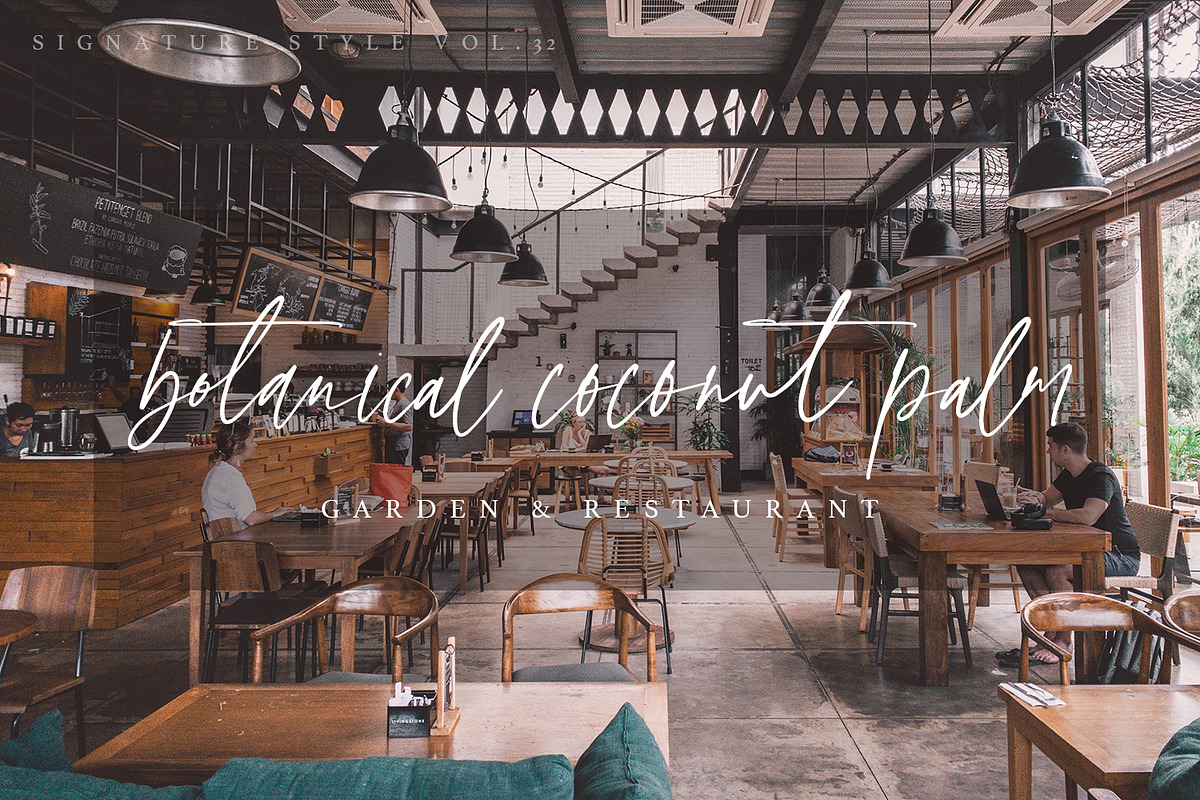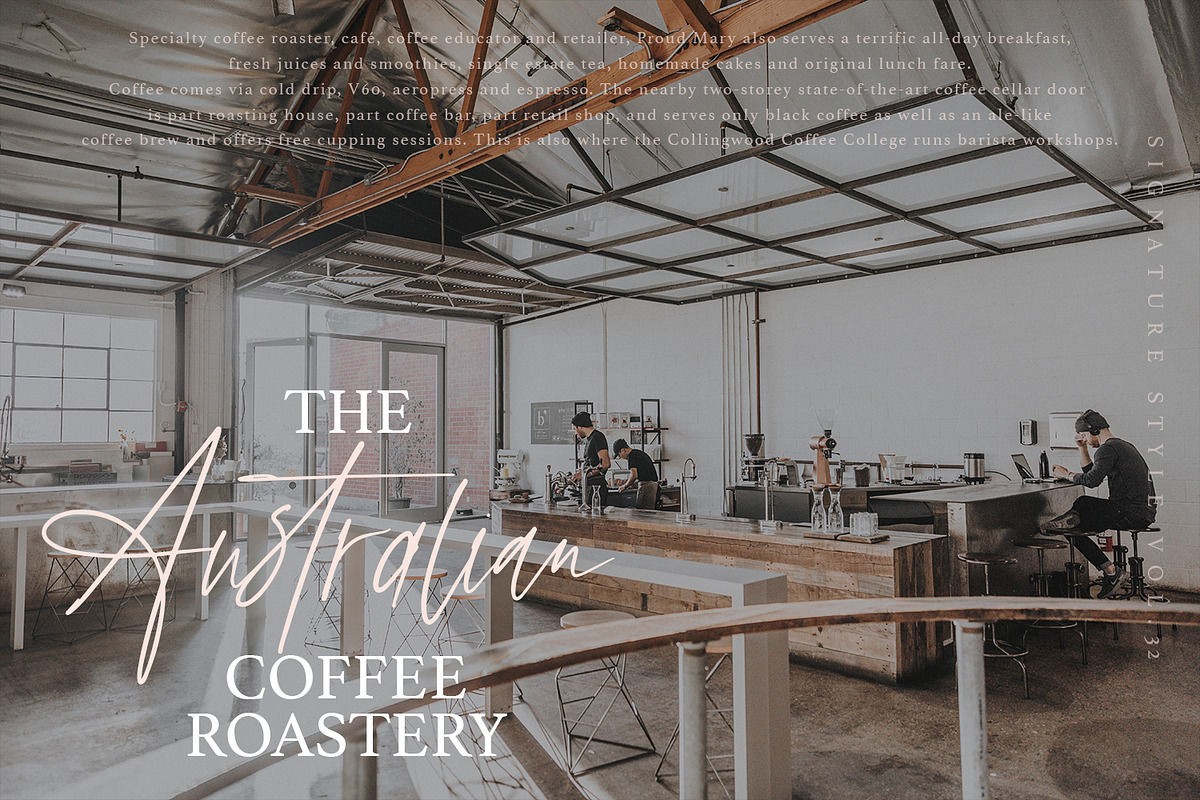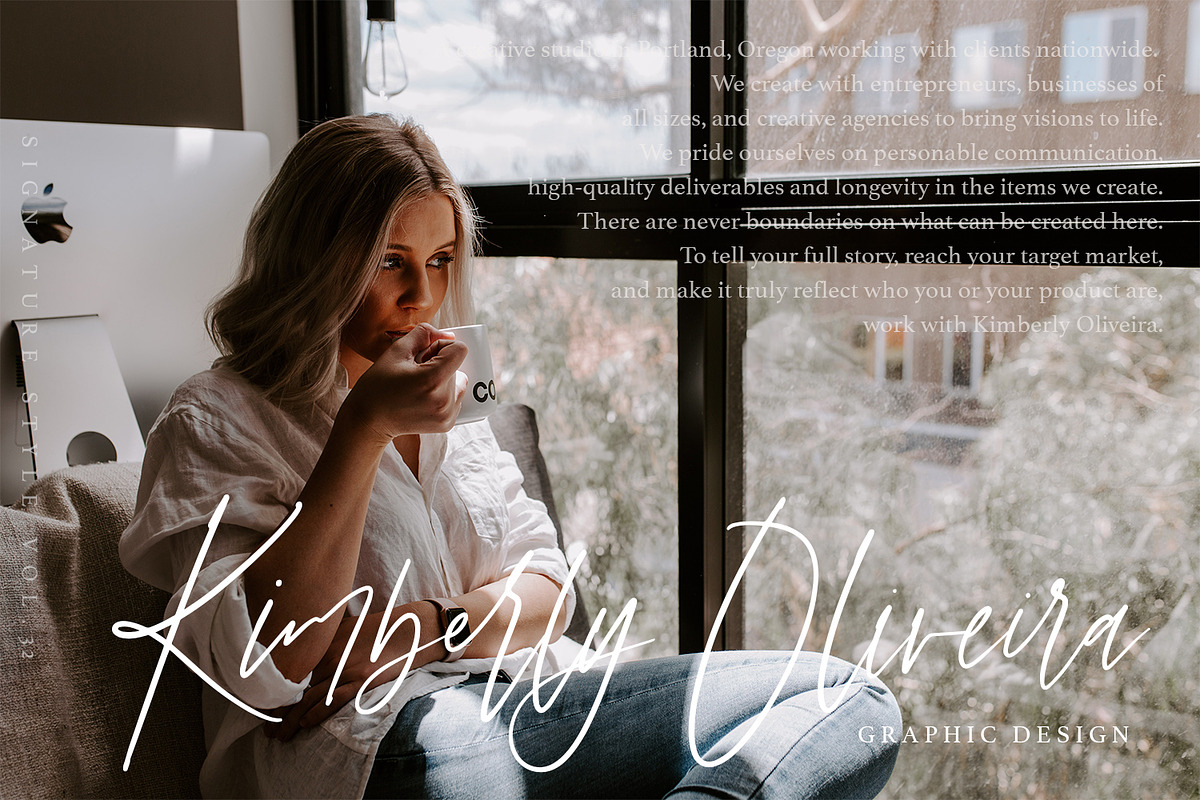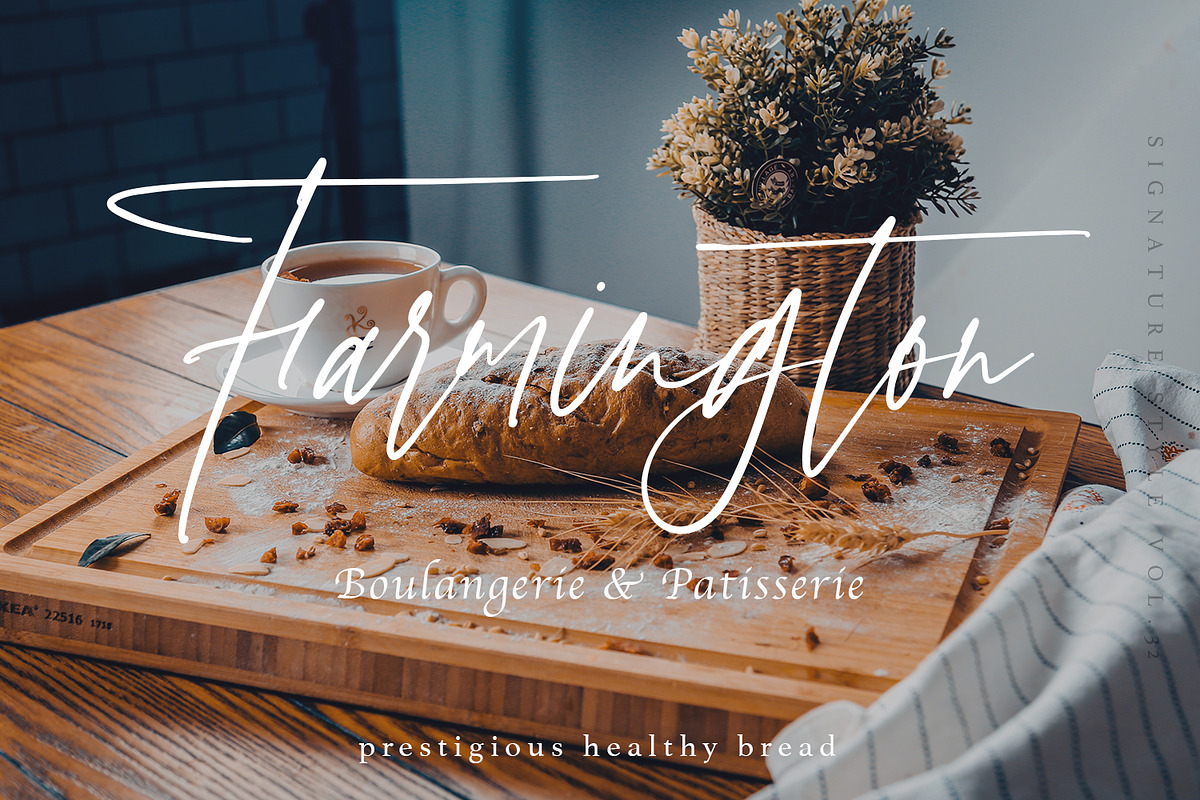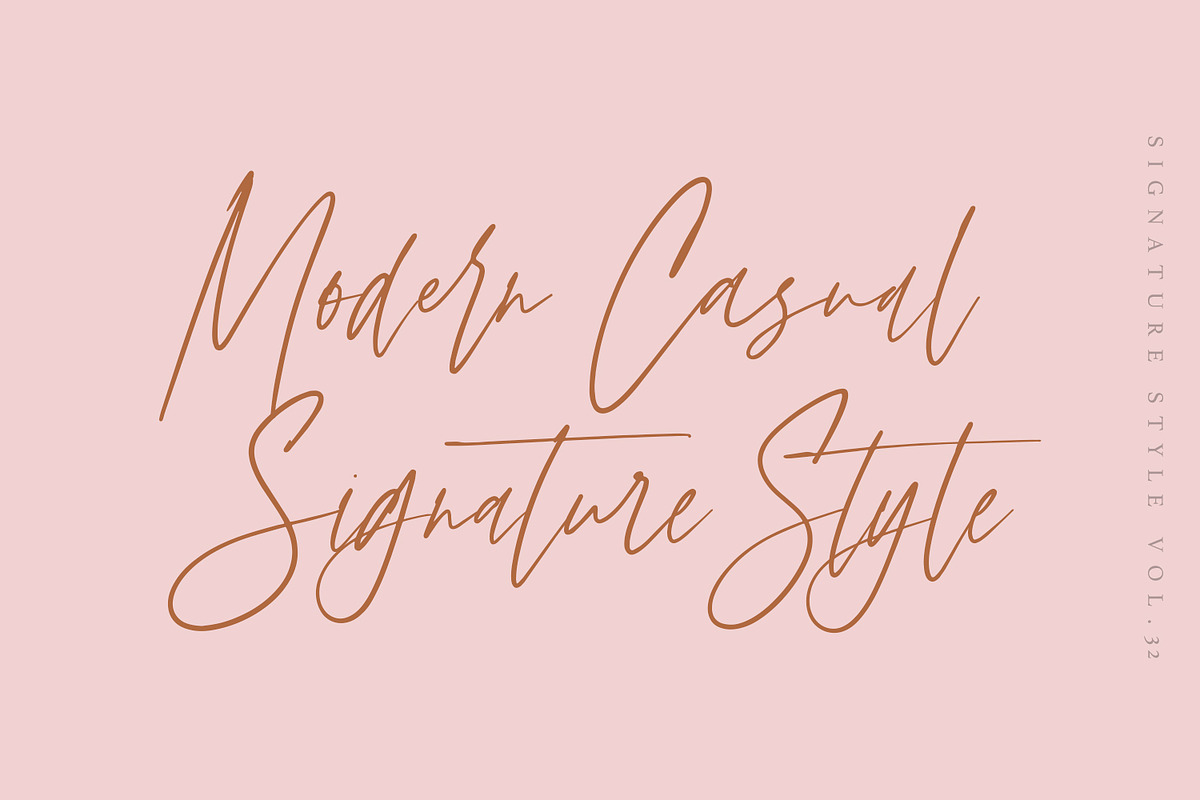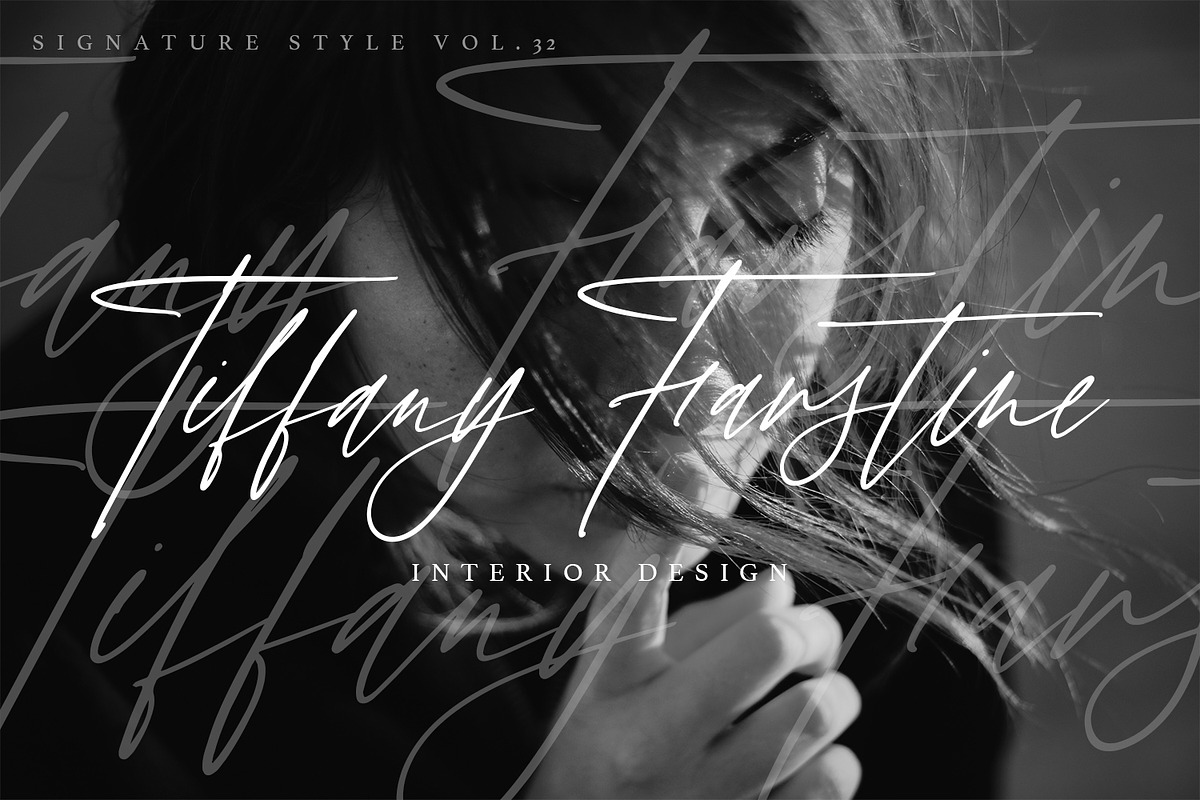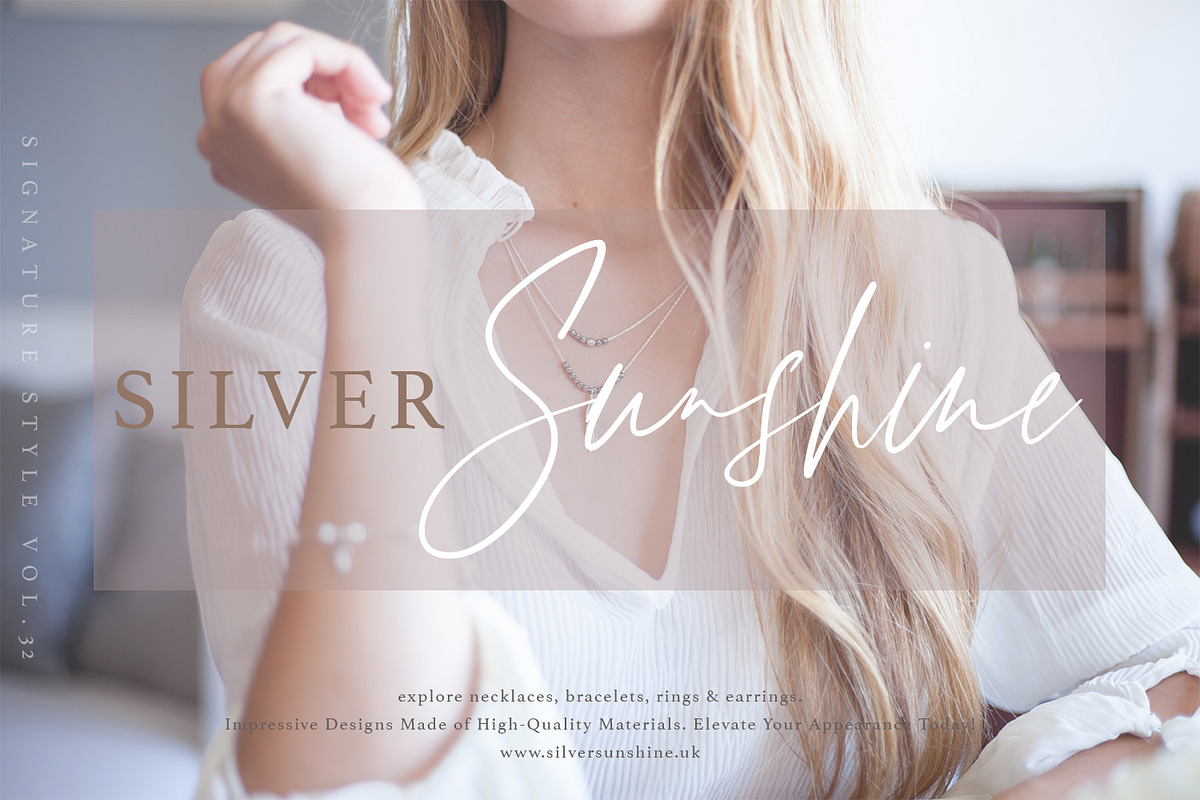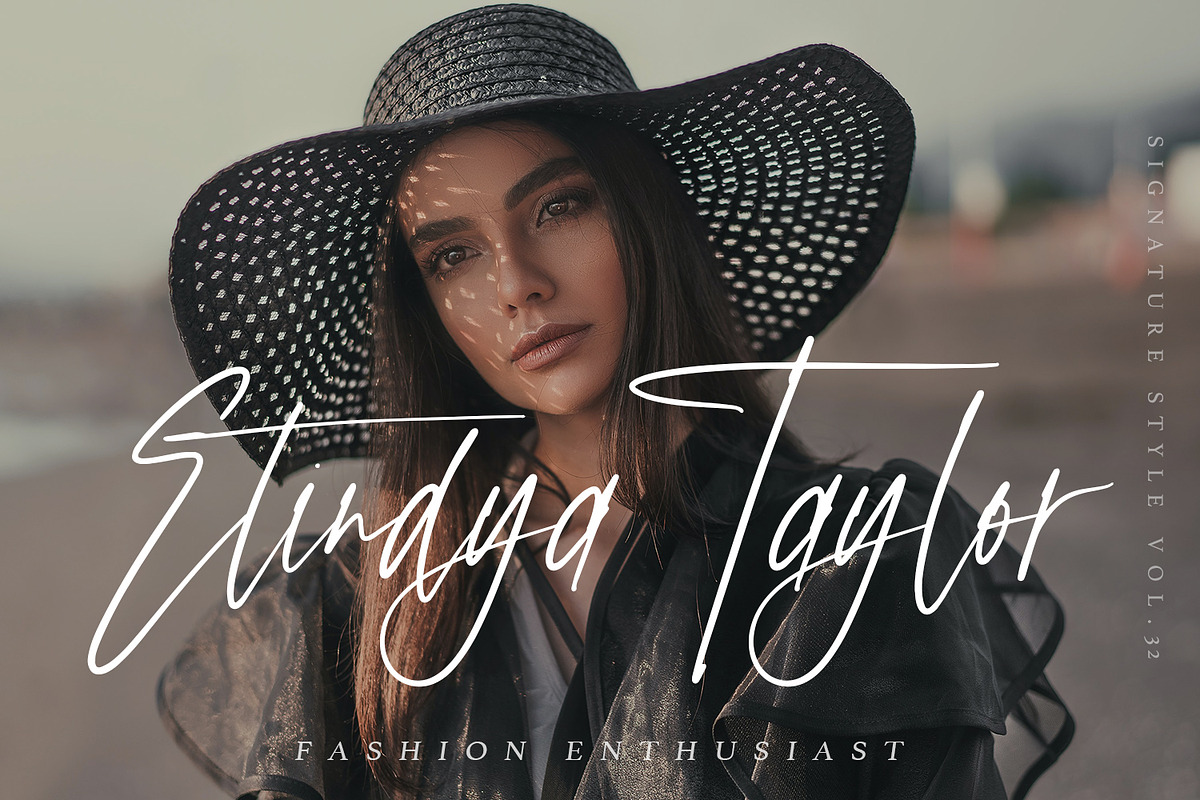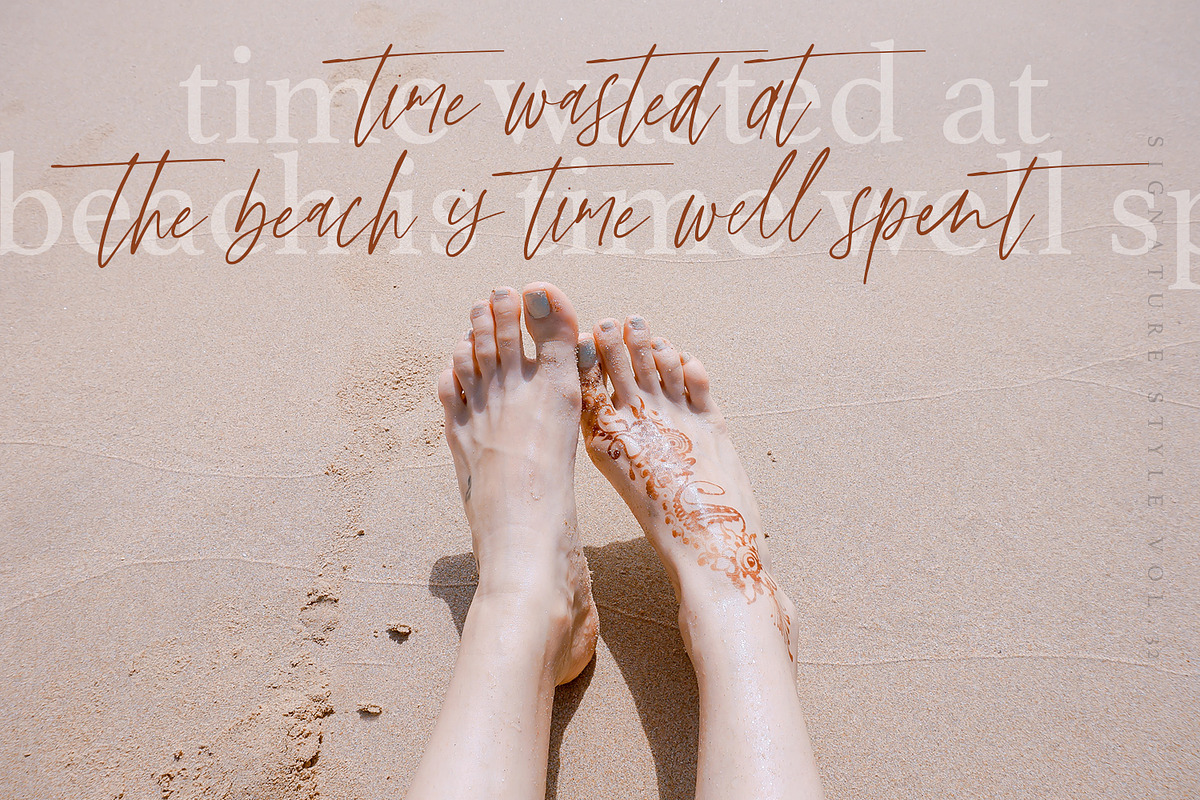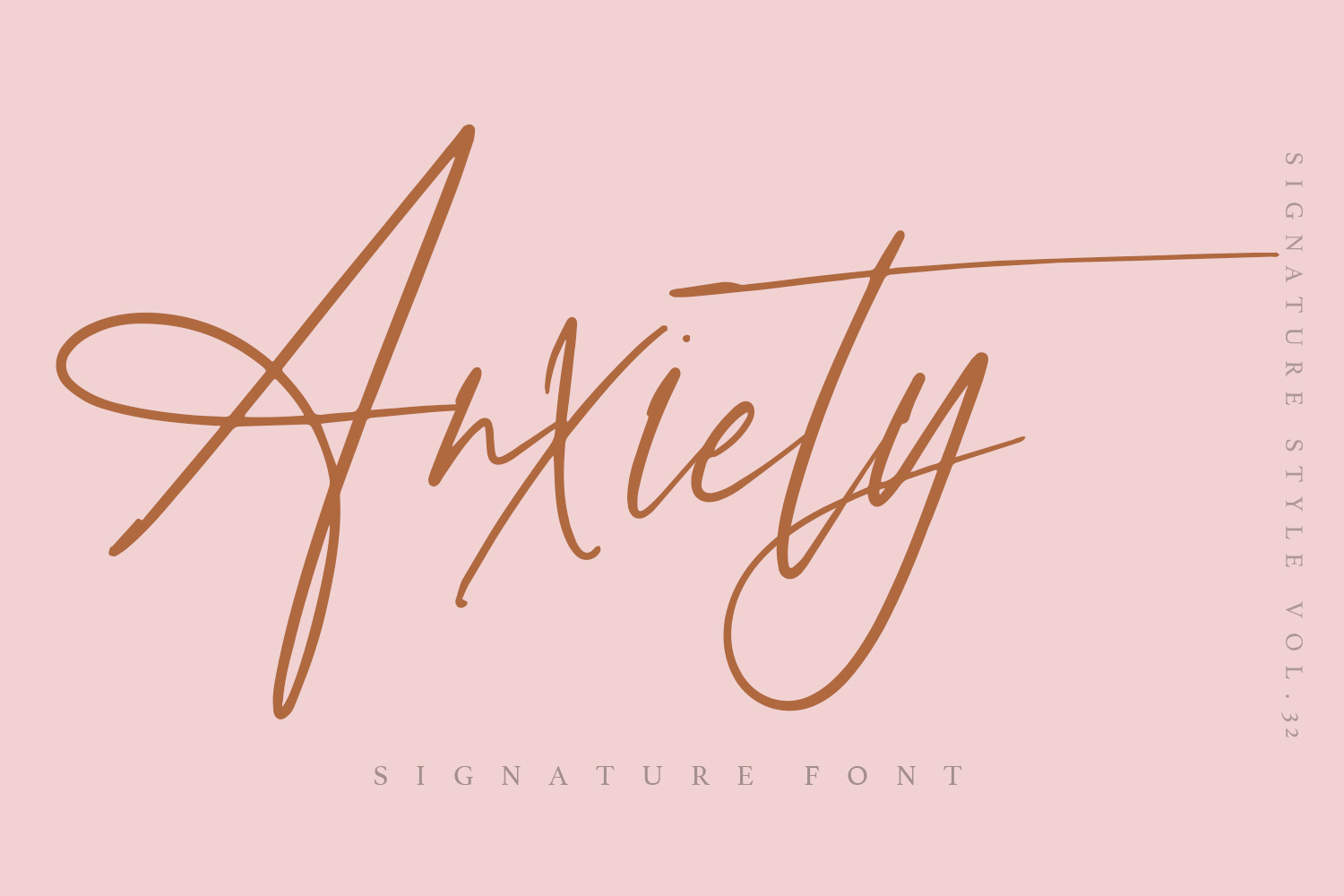
Anxiety - Signature Font
Hello everyone, I want to launch a new Anxiety Signature font with a typical modern script style. This font is made by handwriting directly on the paper, so that it produces very unique handwriting.
For this font, I made 2 lowercase alternatives that you can change as desired. This font is also available with a tilted version. I also added 90+ ligatures that will automatically change when you write something.
Overall anxiety you can use for various digital / print projects, such as invitations, social media, logos, weddings, branding, and graphic design needs, as well as other needs that require signature style writing.